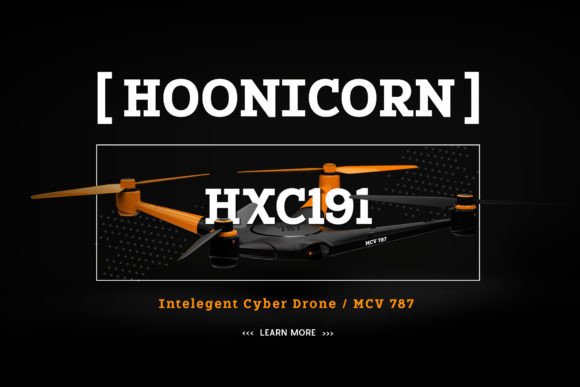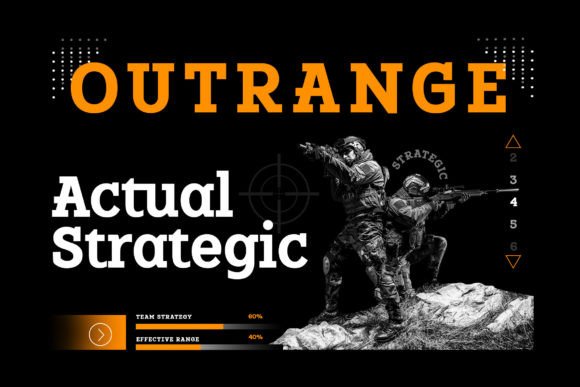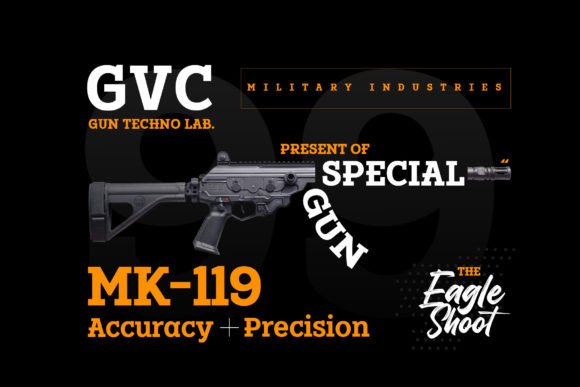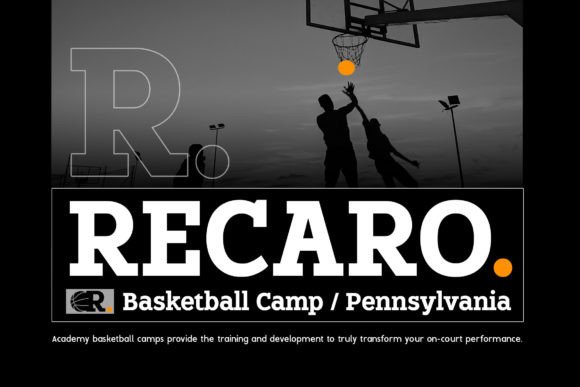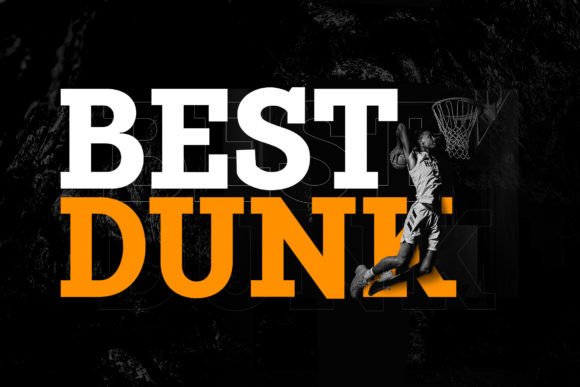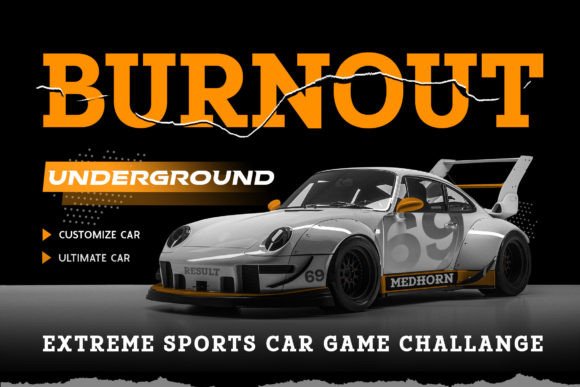
Introduction to Medhorn Font
As a designer, have you ever found yourself stuck in a creative rut, searching for the perfect font to bring your vision to life? I’m sure many of us have been there. But what if you stumbled upon a font that not only captivated your imagination but also perfectly complemented your design style? That’s exactly what Medhorn Font offers – a modern sports slab serif font that’s as versatile as it is stunning.
With Medhorn Font, the possibilities are endless. Whether you’re working on a logo, branding, or modern advertising design, this font is sure to impress. Its sleek, high-quality design makes it an ideal choice for various creative projects, from vintage garage designs to adventure and mountain hiking brands. And the best part? It’s PUA encoded, allowing you to access all of the glyphs and swashes with ease, making it a valuable design resource for any project.
Key Features of Medhorn Font
- Transparent background allows for easy layering and customization in your design, giving you complete control over the final output.
- Available in a range of sizes, making it suitable for use in various design applications, from small text to large headings.
- High-resolution design ensures crisp and clear display on high-resolution screens and print materials.
- Unique characteristics and intricate details make it an excellent choice for designers seeking to add an extra layer of sophistication to their work.
Honest Review: Medhorn Font
As a designer, I’m always on the lookout for high-quality fonts that can elevate my creative projects. Recently, I stumbled upon the Medhorn Font, and I’m excited to share my thoughts on this design resource.
What works well: ✨ The Medhorn Font has a unique, modern design that’s perfect for a variety of creative projects, from branding to web design. The font is highly customizable, making it a great addition to any design arsenal. Plus, it’s available for free download, which is a definite bonus!
Here are some key features that I love about the Medhorn Font:
- High-quality design with a modern feel
- Transparent background, making it easy to customize
However, I do have a few concerns: ⚠️ The font may not be suitable for projects that require a more traditional or classic feel. Additionally, the font’s design can be quite bold, so it may not be the best choice for projects where subtlety is key.
Overall, I’m impressed with the Medhorn Font and would definitely recommend it to fellow designers. With its high-quality design, free download, and transparent background, it’s a great addition to any design resource library.
Tips for Getting the Most Out of Medhorn Font
For the most out of Medhorn Font, use it in combination with other high-quality design resources. Experiment with different font sizes, colors, and layouts to create a unique and visually appealing design. Additionally, consider using Medhorn Font’s transparent background to create complex designs with layers.
Common Use Cases for Medhorn Font
Medhorn Font is a highly customizable design resource, allowing you to easily modify its appearance to suit your creative project’s requirements. You can adjust font sizes, colors, and styles to create a unique and engaging visual identity.